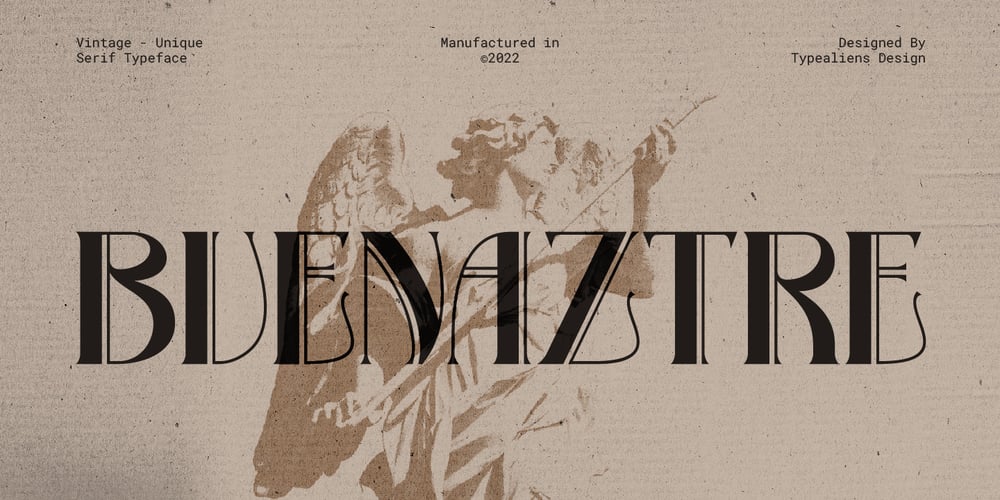
Bvenaztre
Bvenaztre font
Bvenaztre Font Family was designed by Ilham Wahyu and published by Ilhamtaro. Bvenaztre contains 1 styles and family package options. BVENAZTRE is a basic serif font, which was modified into an art deco font that looks vintage and classic. With the art deco style, it is very suitable for art-style designs or it could be with Greek and Roman styles.To enable the OpenType Stylistic alternates, you need a program that supports OpenType features such as Adobe Illustrator CS, Adobe Indesign & CorelDraw X6-X7.Cheers!